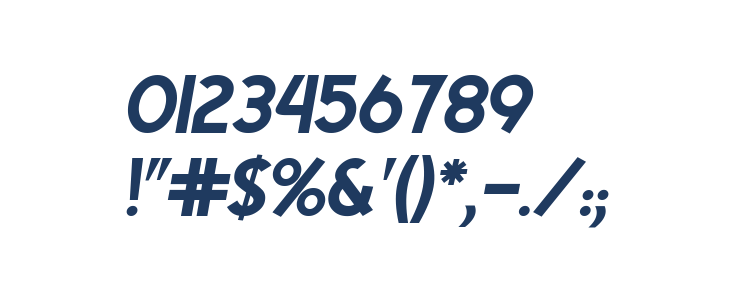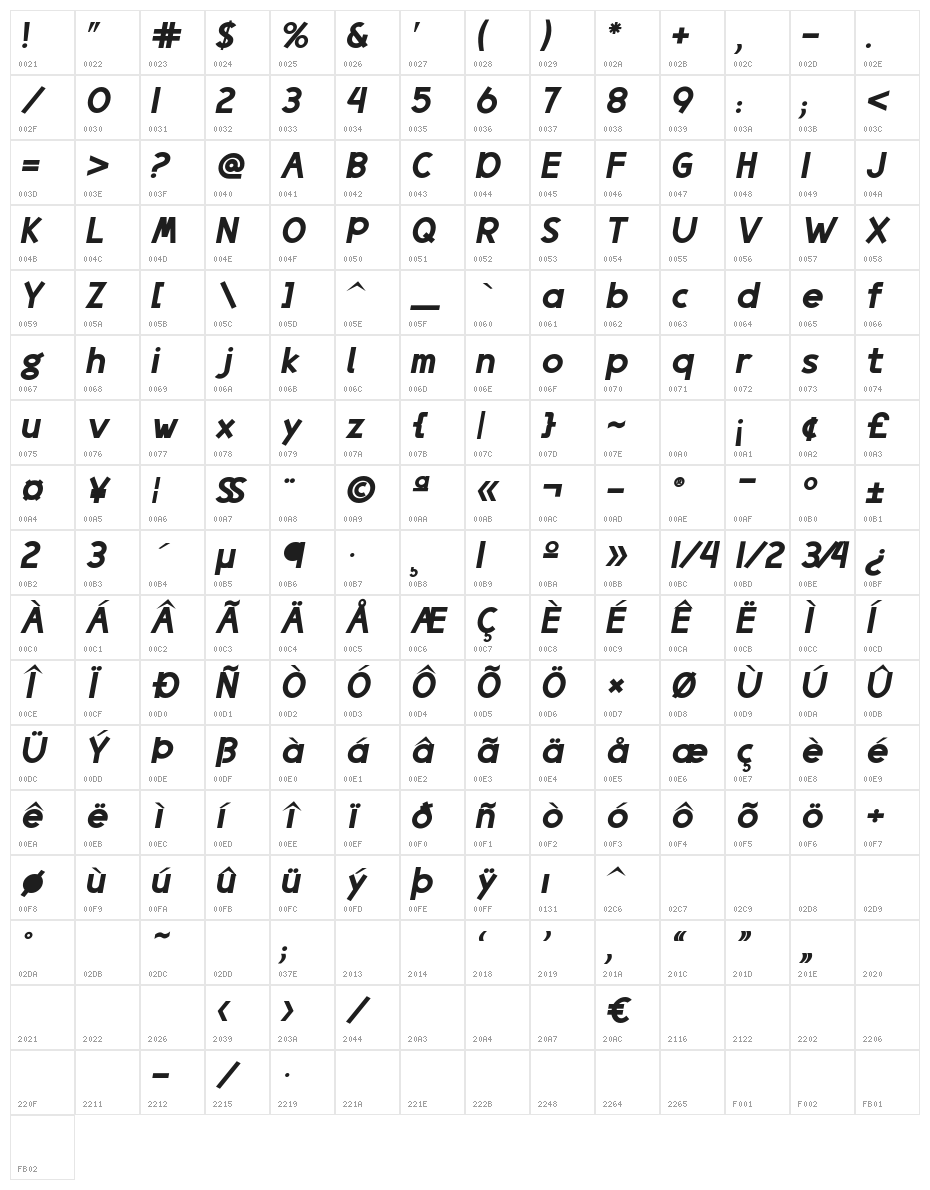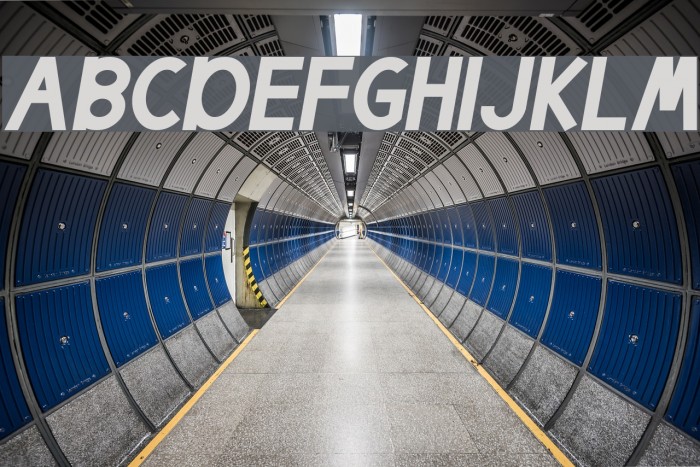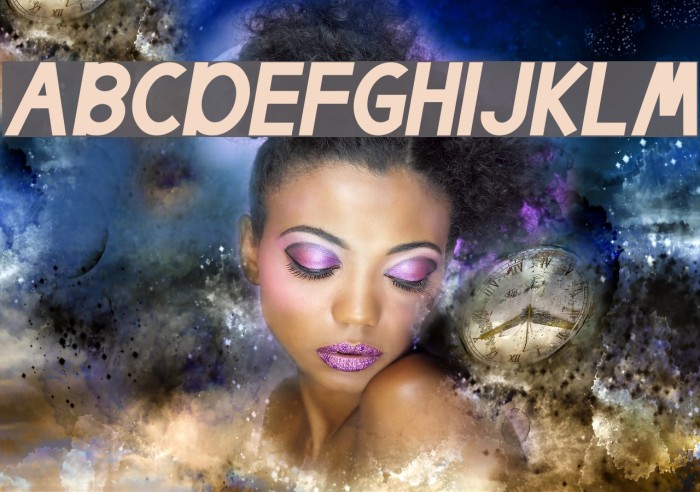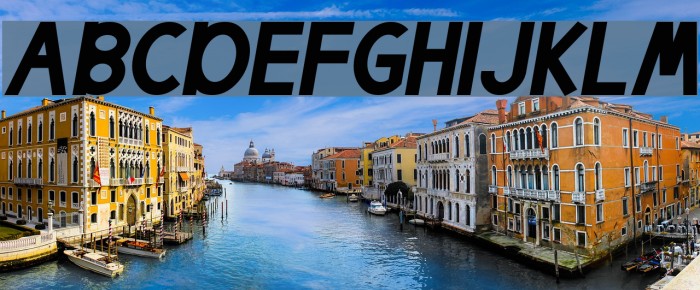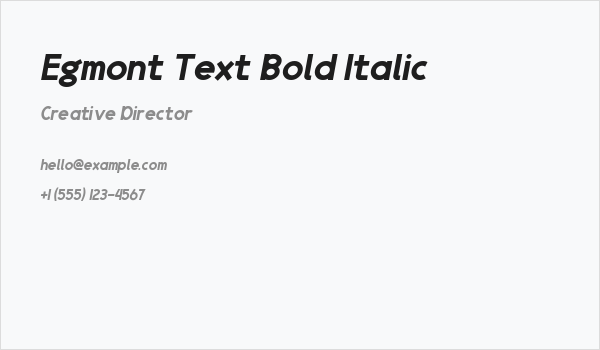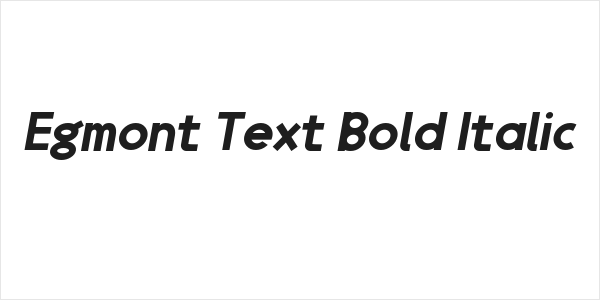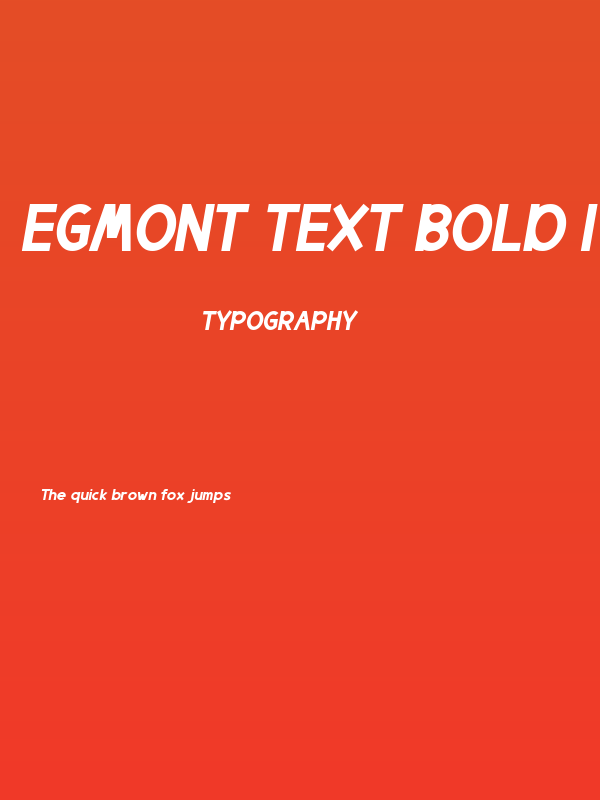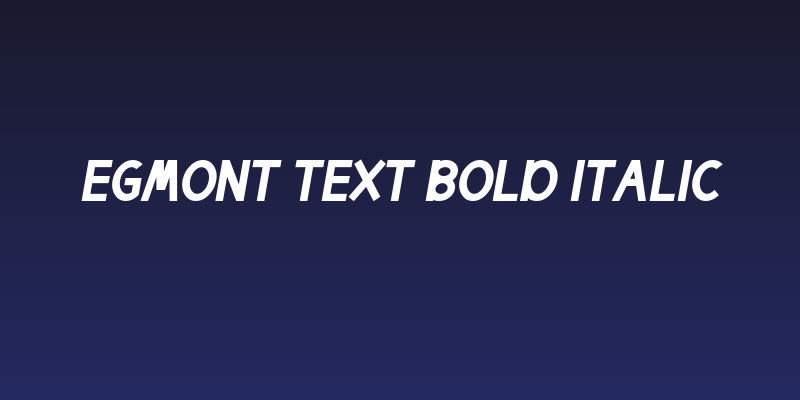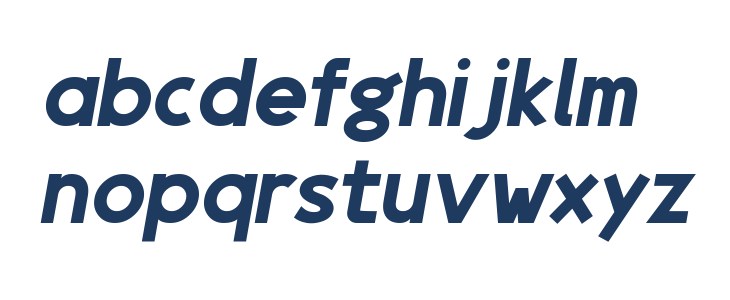
Egmont Text Bold Italic Font
Egmont Text Bold Italic Description
This font features a bold and italic style, characterized by its strong and dynamic appearance. The letters are slightly slanted, giving a sense of movement and energy. The strokes are thick and consistent, providing a robust and confident look. The design maintains clarity and readability, even with its bold weight. The characters are well-proportioned, with a slight emphasis on the diagonal strokes, enhancing the italic effect. The numerals and special characters match the boldness of the alphabet, ensuring a cohesive look across all elements.